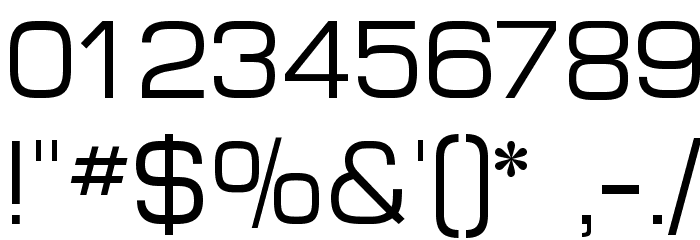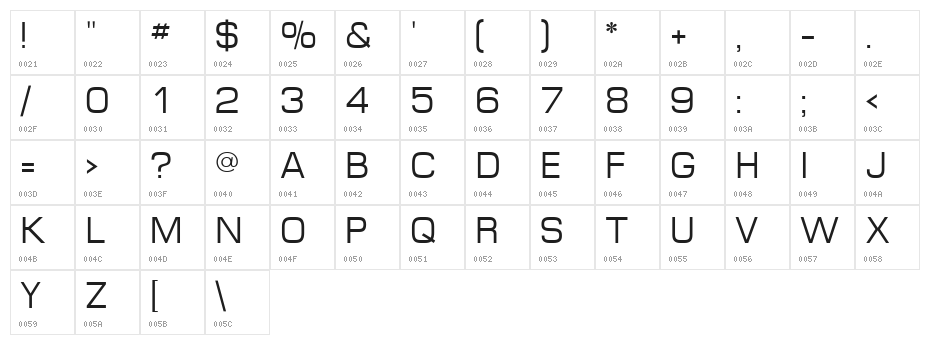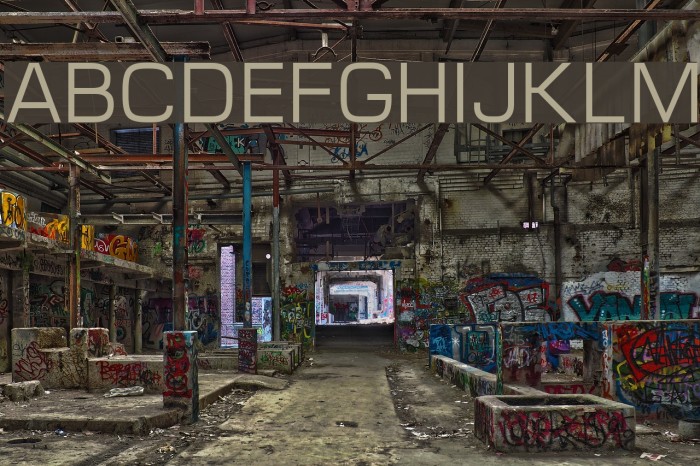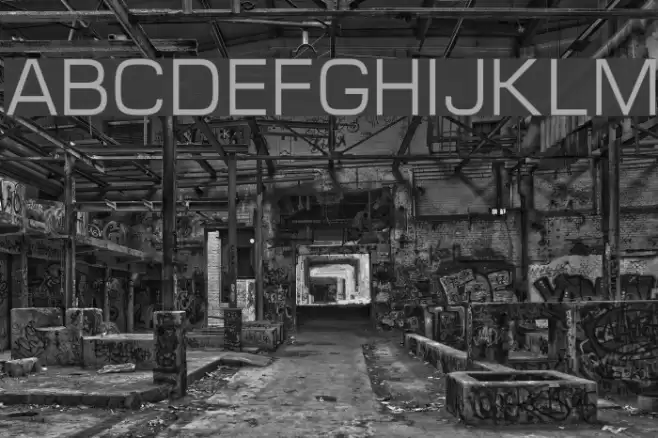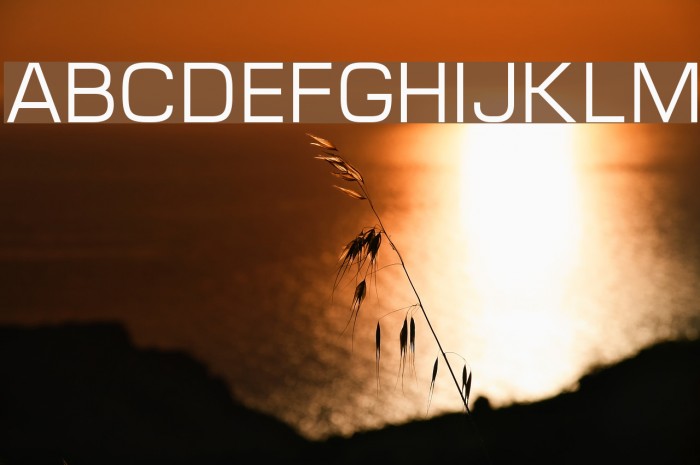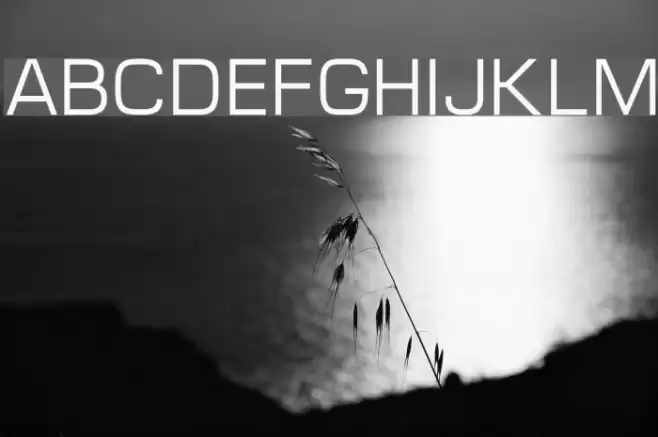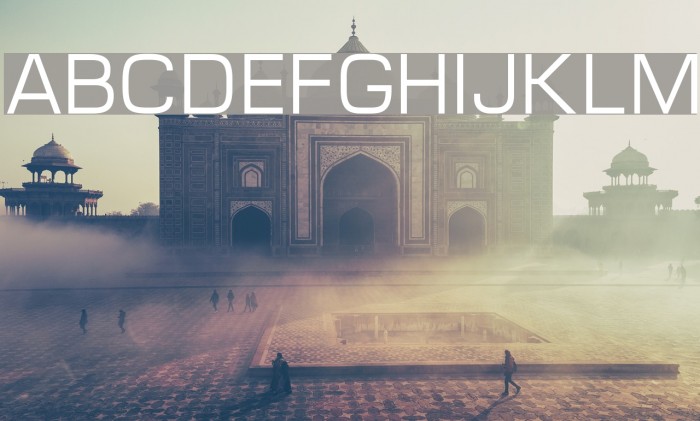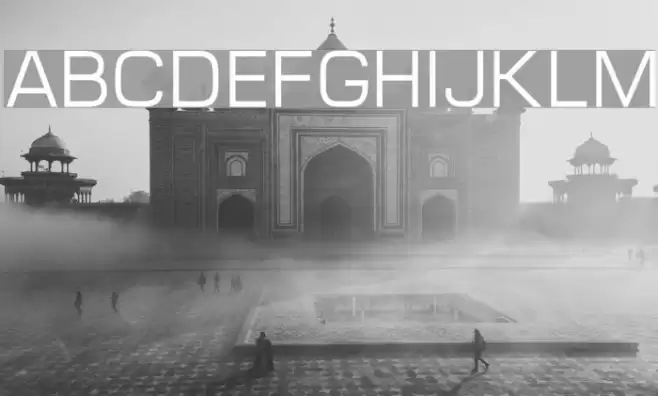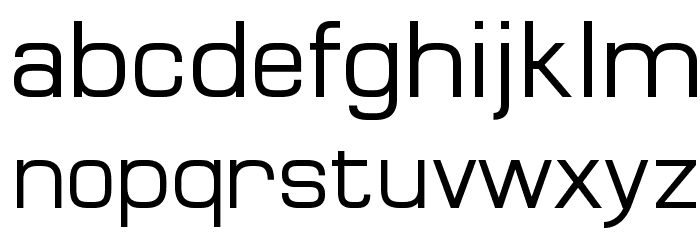
Minima SSi Font
Minima SSi Description
This typeface features a clean and modern sans-serif design, characterized by its geometric shapes and uniform stroke widths. The uppercase letters are bold and assertive, while the lowercase letters maintain a consistent and harmonious appearance. The numerals are clear and easily distinguishable, making them suitable for various applications. Special characters are well-integrated, maintaining the overall aesthetic of the font. Its simplicity and clarity make it versatile for both digital and print media, offering a professional and contemporary look.